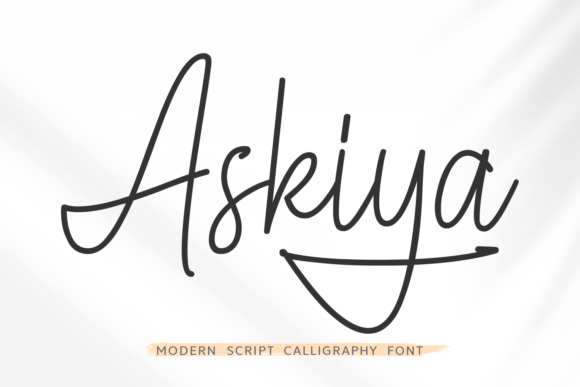
Discover the Elegance of Modern Calligraphy with Askiya Font
There’s something special about the feeling of dipping a pen into ink and watching the words come to life on the page. For designers and creatives, this moment is a chance to tap into their artistic side and bring a touch of personality to their work. And now, with the Askiya Font, you can capture that same magic in your digital designs.
This modern calligraphy font is designed to add a touch of sophistication and elegance to any project. Whether you’re creating branding materials, wedding invitations, or social media graphics, the Askiya Font is sure to make a lasting impression. With its versatility and timeless appeal, this font is a valuable addition to any designer’s toolkit, offering endless possibilities for creative expression.
Askiya Font Key Features
- Font Family: Askiya Font offers a diverse range of font styles, including bold, italic, and regular weights.
- Unique Characteristics: Askiya Font features a unique blend of traditional and modern elements, making it an excellent choice for designers seeking a distinctive look.
Askiya Font Review
Overall, I was quite impressed with the Askiya font. It has a unique, modern aesthetic that could work well for various design projects. ✨ The font’s clean lines and subtle flair make it an excellent choice for titles, headings, and even body text in certain contexts.
- The Askiya font has a great balance of legibility and style, making it suitable for digital applications, such as websites, mobile apps, and social media.
- It supports multiple weights, from light to bold, allowing for a high degree of customization and flexibility.
- The font’s modern design is perfect for brands and projects looking to convey a sense of innovation and forward-thinking.
However, there are a few limitations to consider. ⚠️ While the font is generally well-suited for digital use, it may not be the best choice for print materials, such as brochures, magazines, or business cards, due to its relatively thin lines and limited x-height.
Overall, I would recommend the Askiya font for designers working on modern, digital projects. Its unique style and flexibility make it a great addition to any design toolkit.